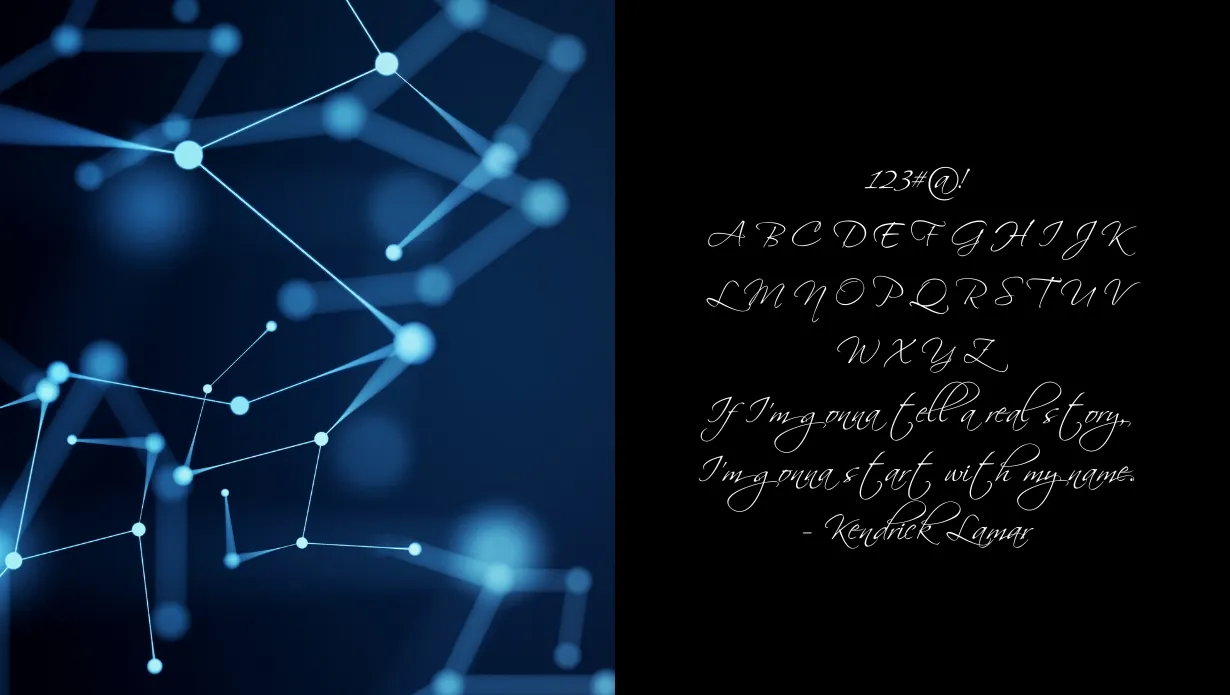
In this blog, We present a very natural calligraphy typeface that also gives a handwritten look to your project named Wedding Font. This is a top-notch calligraphy typeface that is actually made for wedding invitation cards and decorations.
Wedding font was created by a very well-famed font foundry name Creative Lab. It has very attractive rounded glyphs and structure, which give an outstanding impression to your design project.